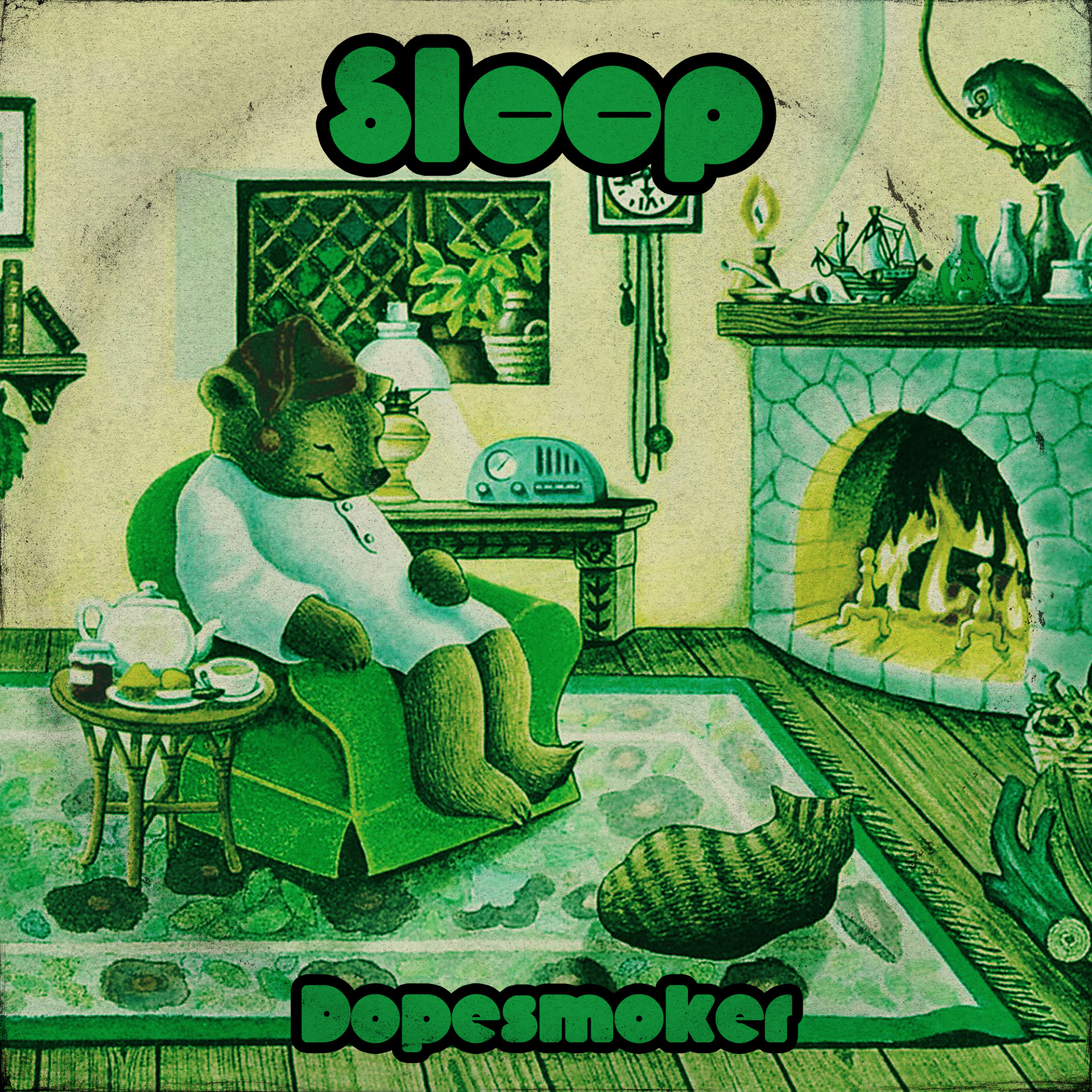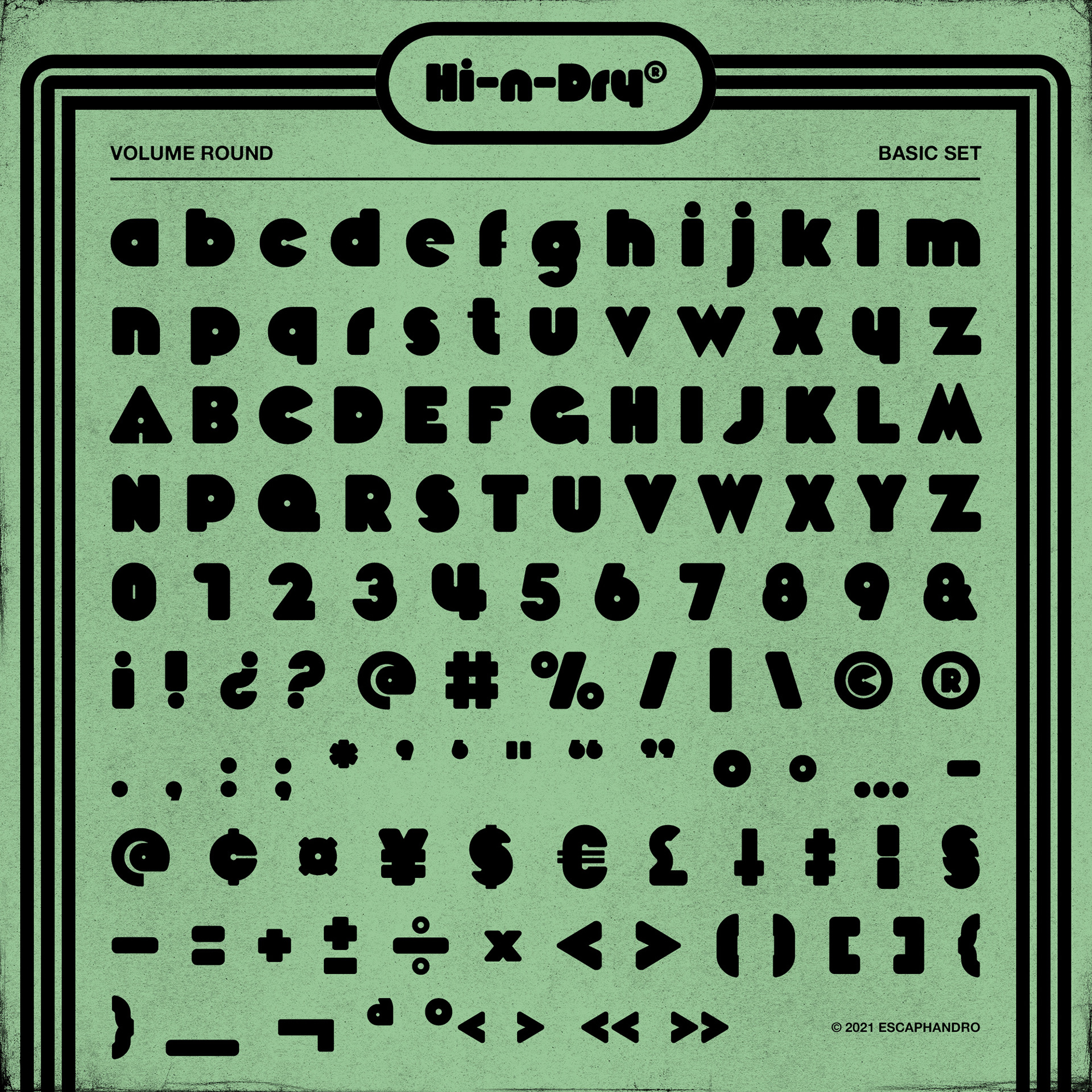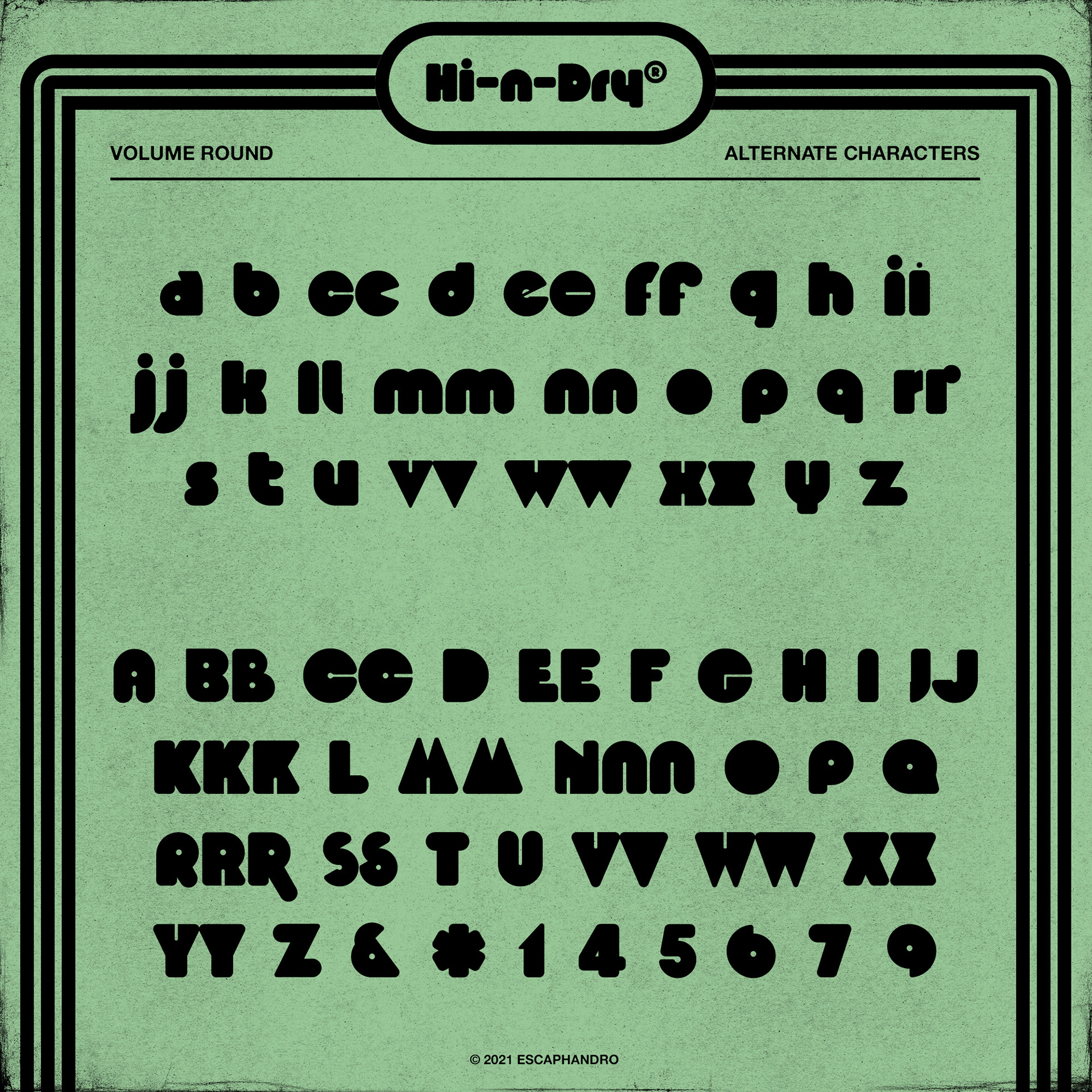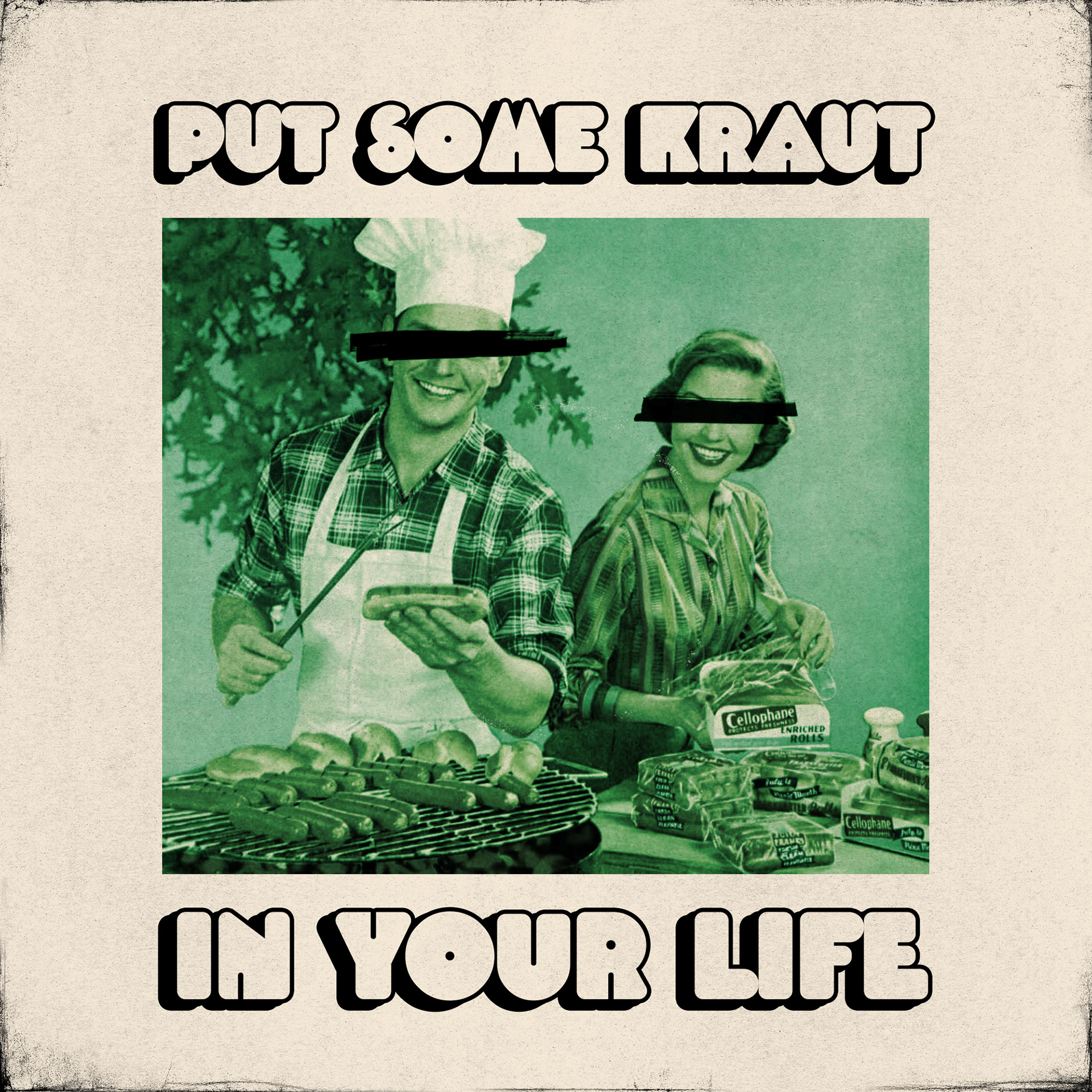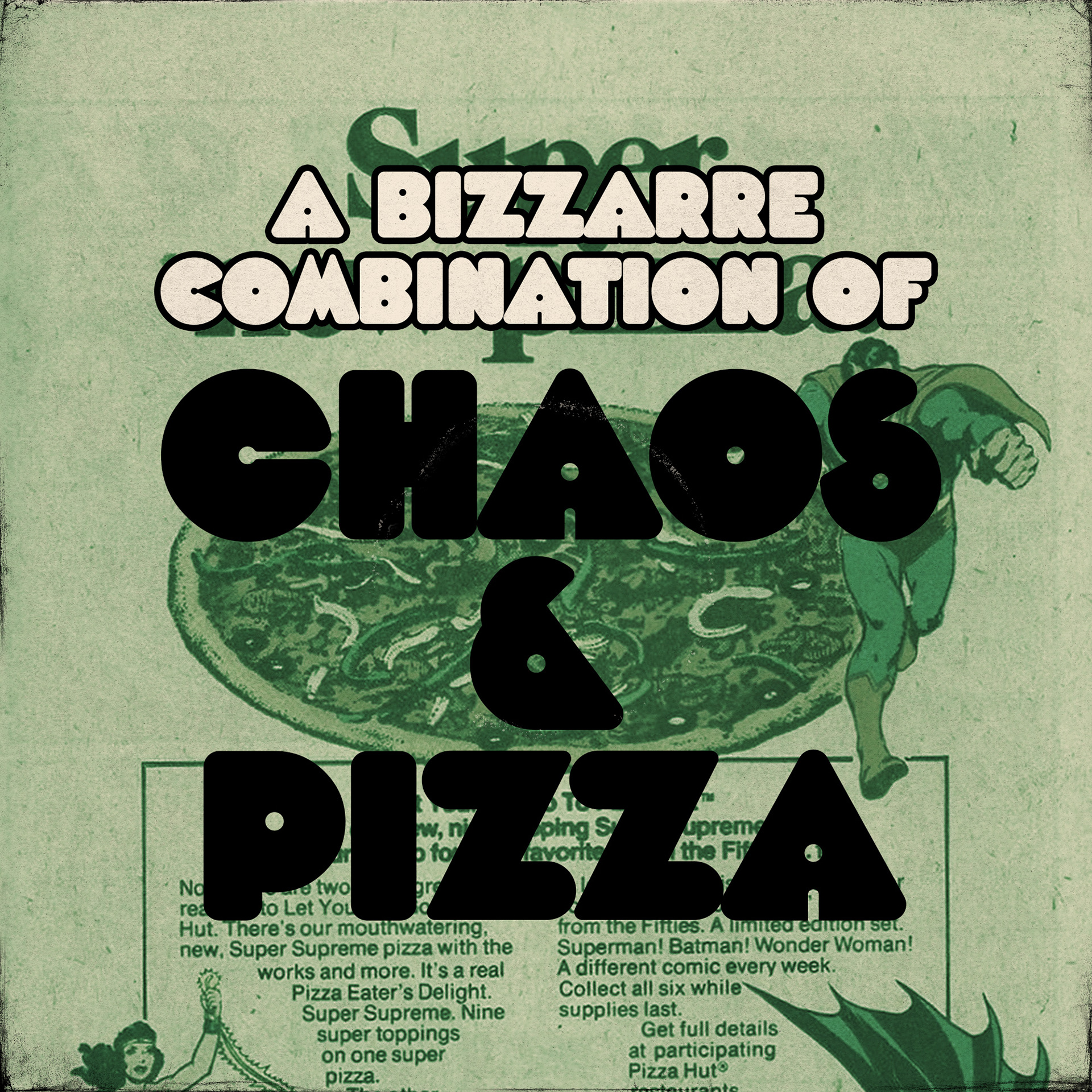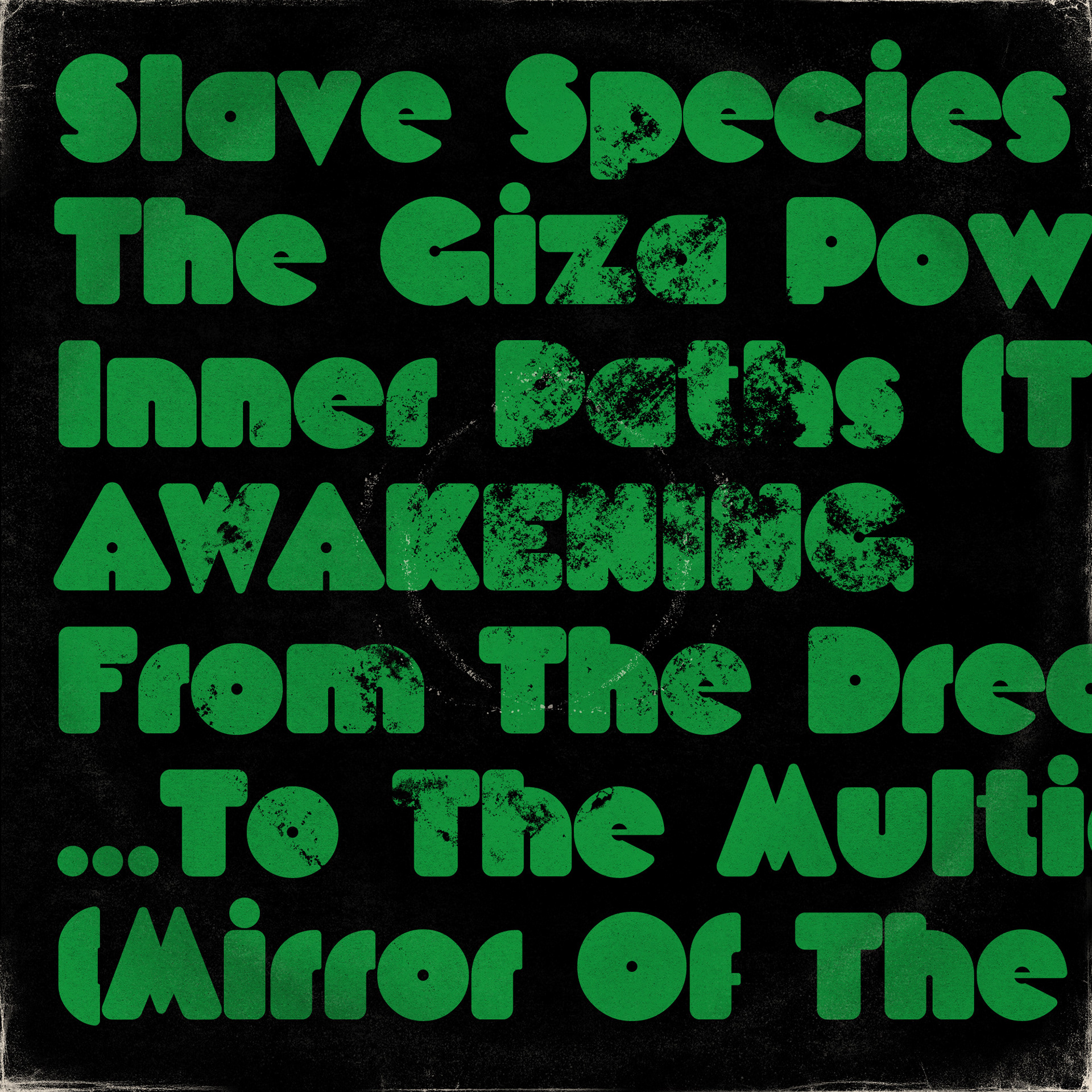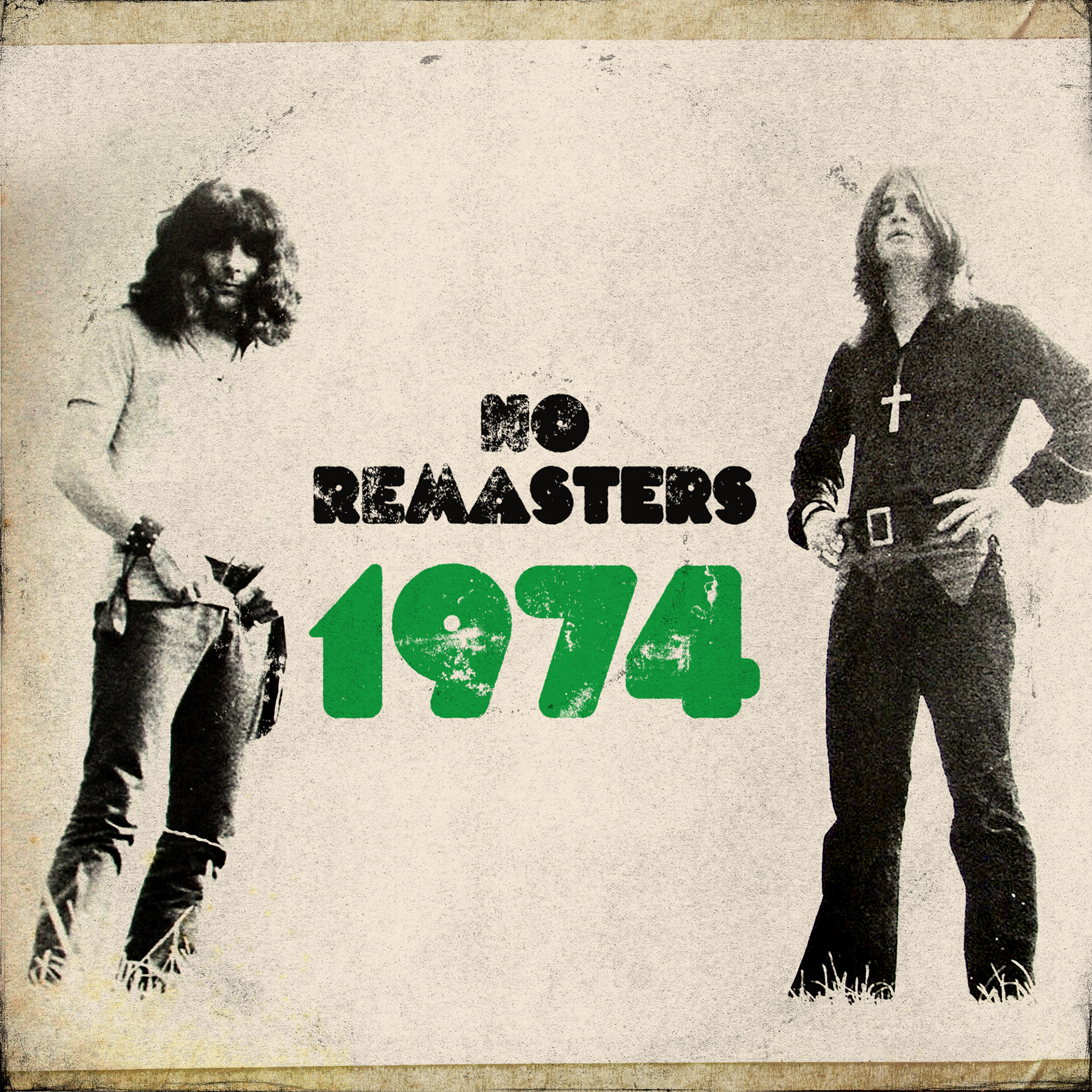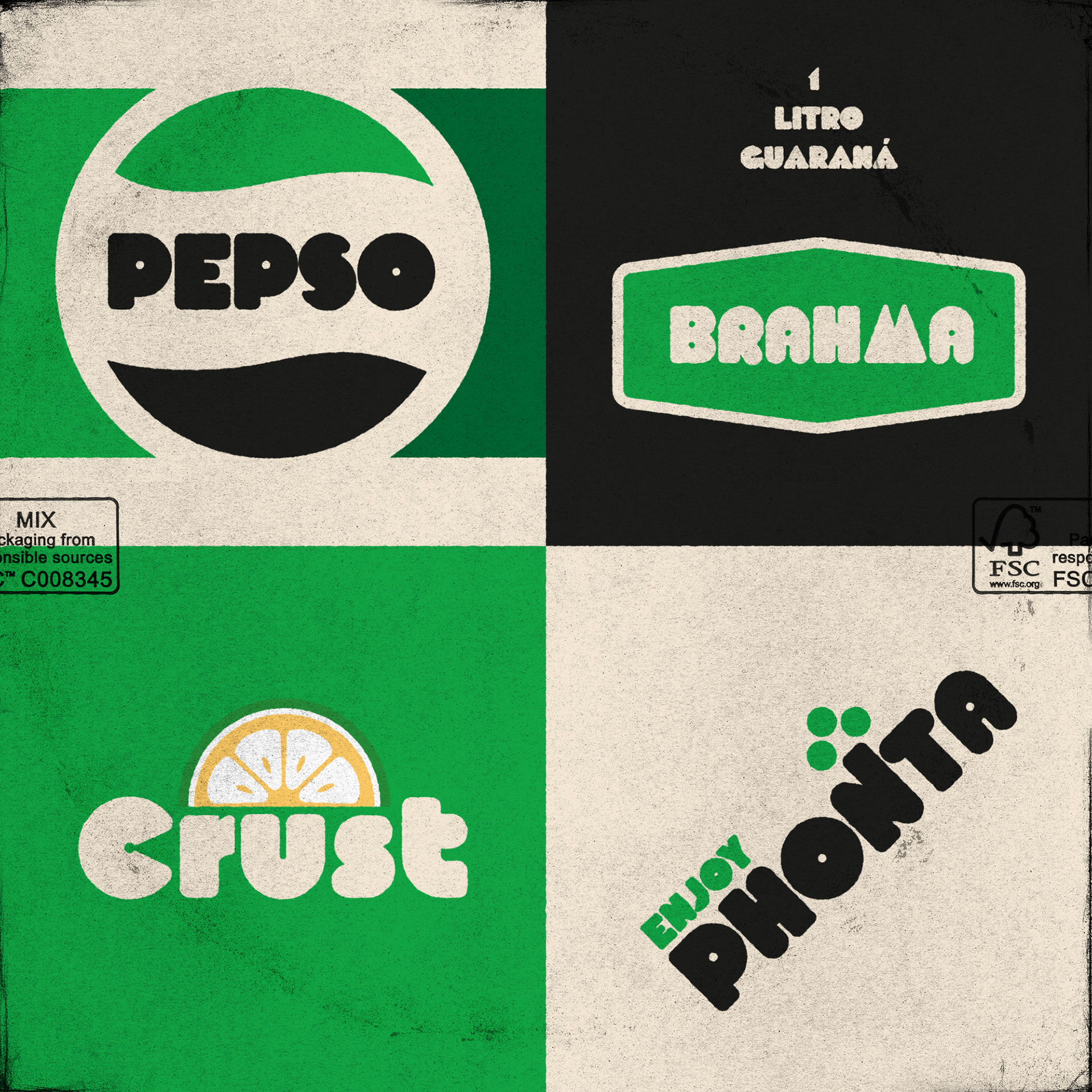
Volume Round takes its cousin Volume Dealer structure to a retro-weird level.
Inspired by late 1960s photo typesetting designs, most of its identity comes from the works of Peter Steiner, adding a little sci-fi flair to the details.
Complete latin characters with a few alternates for each letter and numerals.